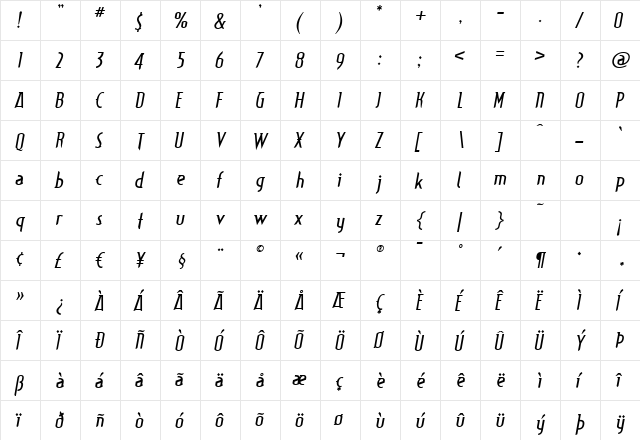
Typographiction1.1 R.I Regular Font Preview
Typographiction1.1 R.I Regular
Design Context for Typographiction1.1 R.I Typeface
Typographiction1.1 R.I offers clean, dependable letterforms without strong stylistic allegiance, making it a practical choice for designers who need flexibility.